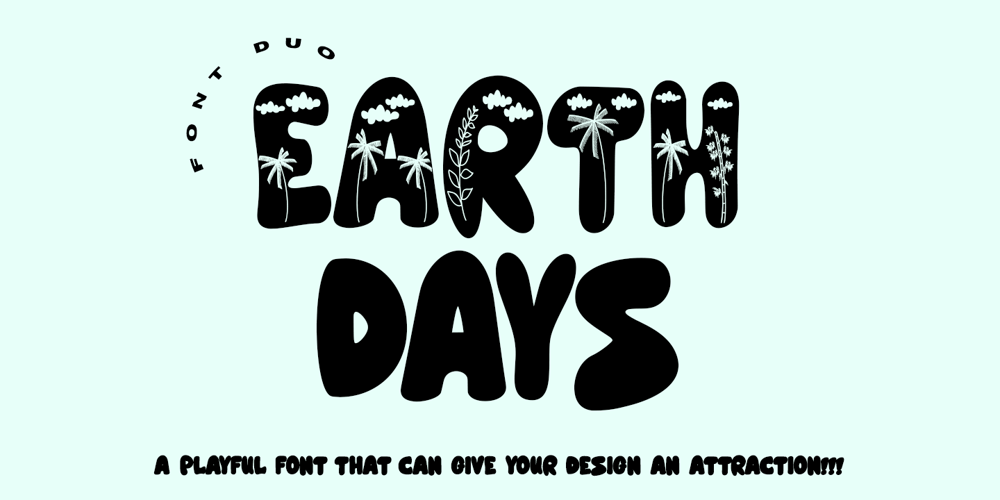
Earth Days Font Family was designed by Thomas Aradea and published by Letterara. Earth Days contains 2 styles and family package options. Earth days is a font duo inspired by earth day and features an incredibly fun and cute feel! Get inspired by its childlike charm.